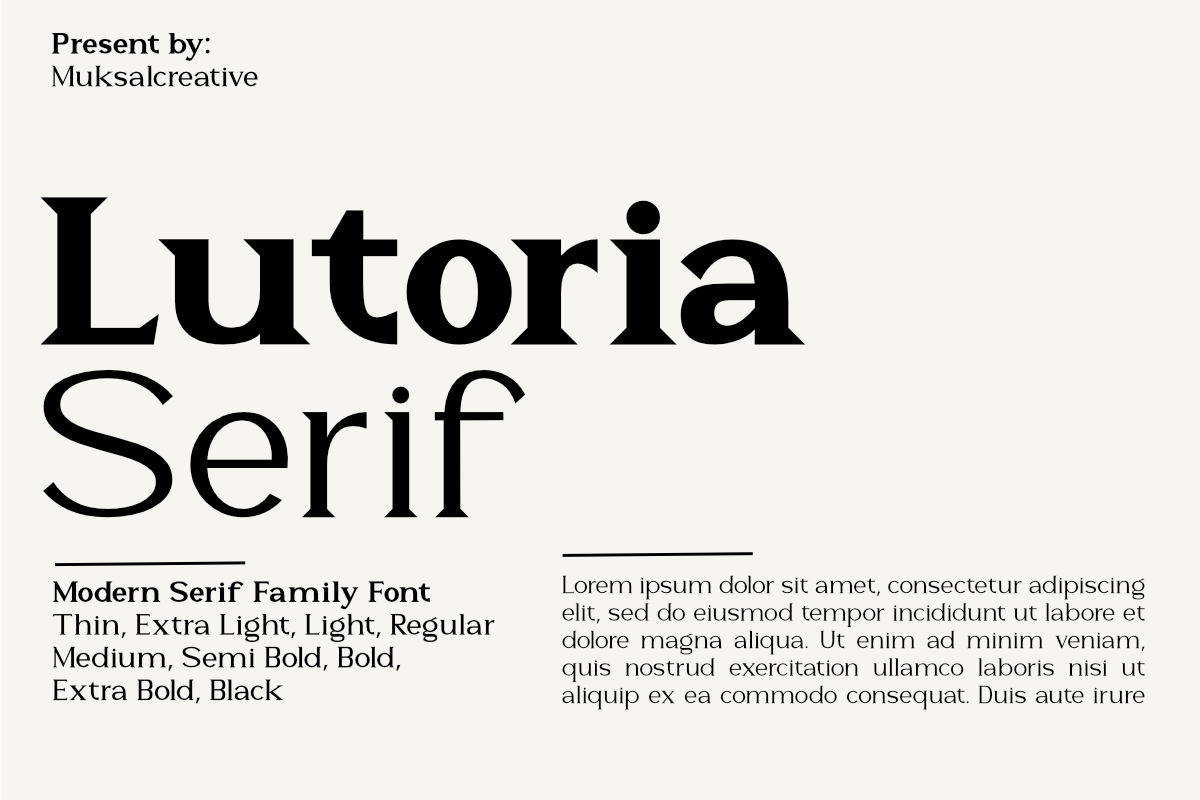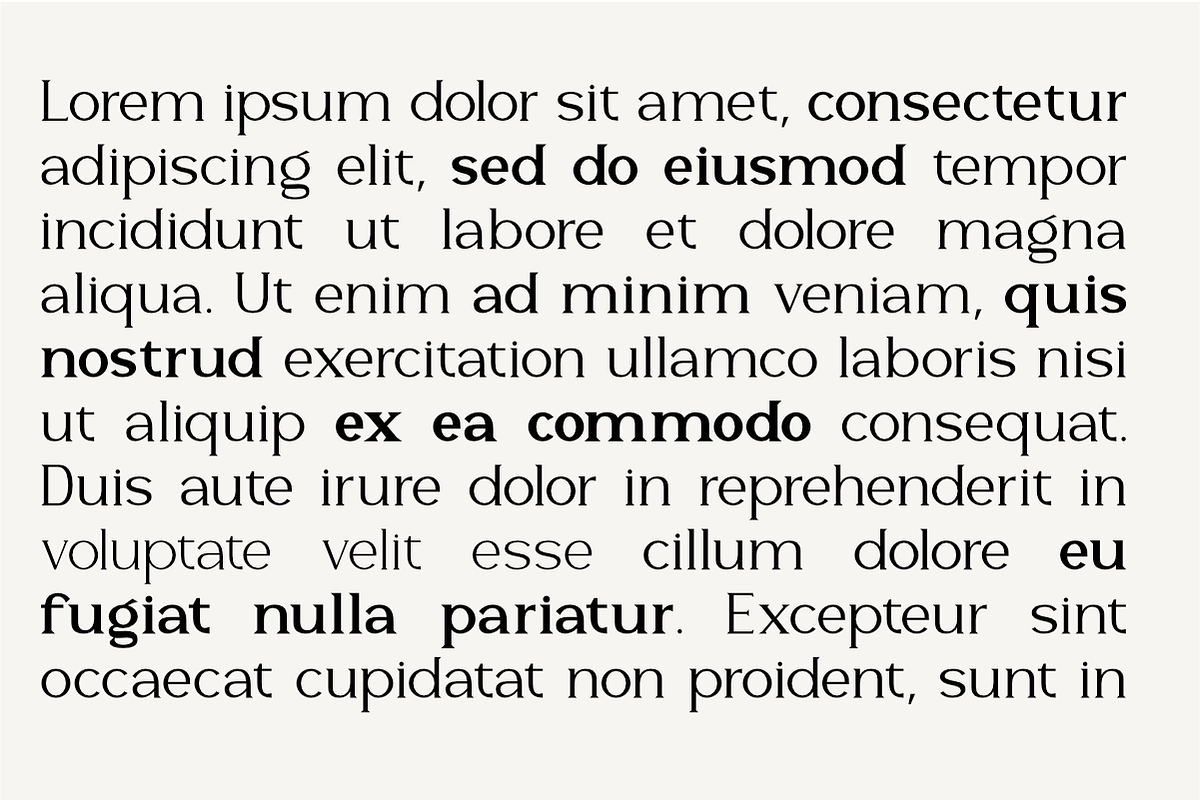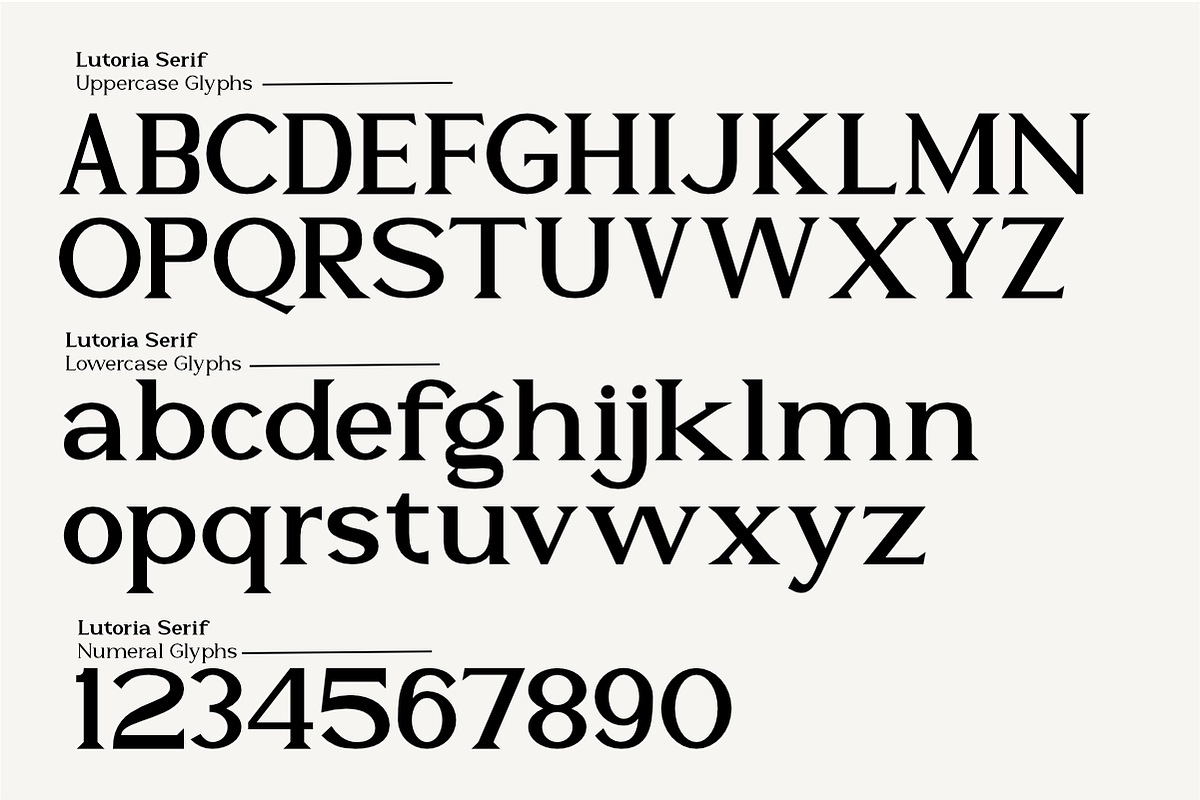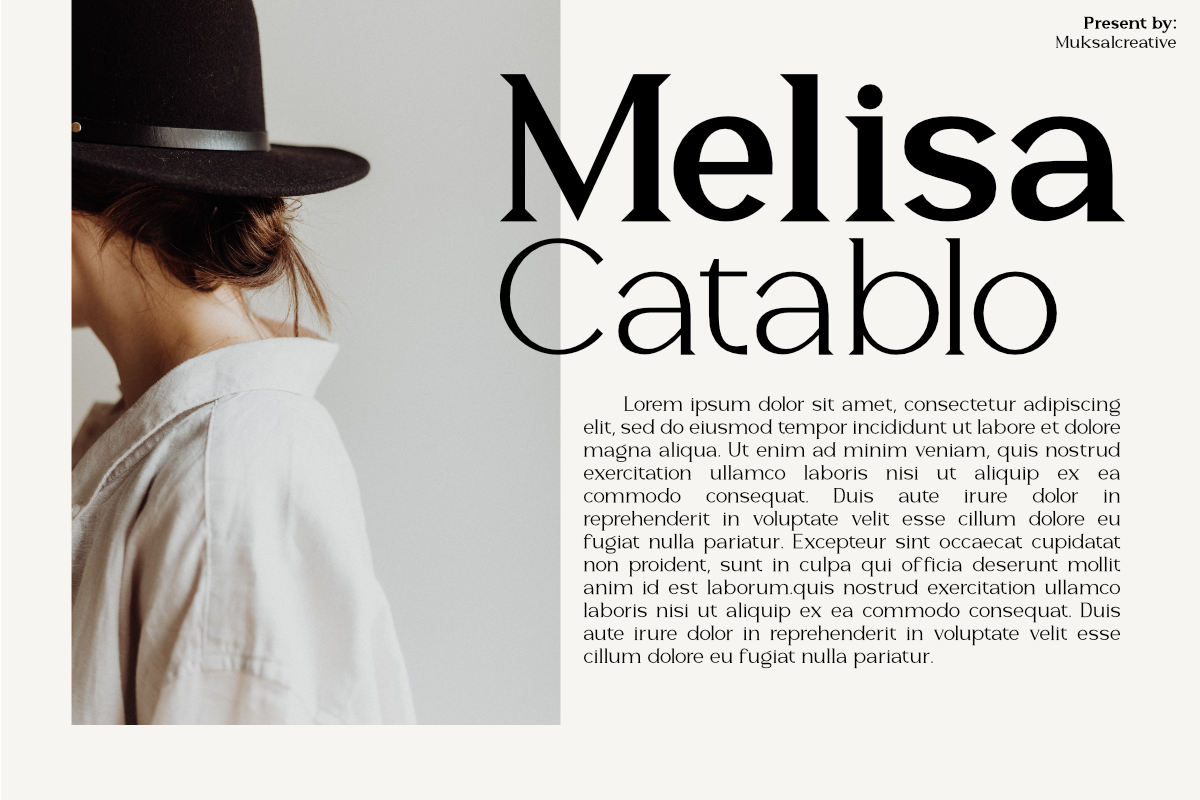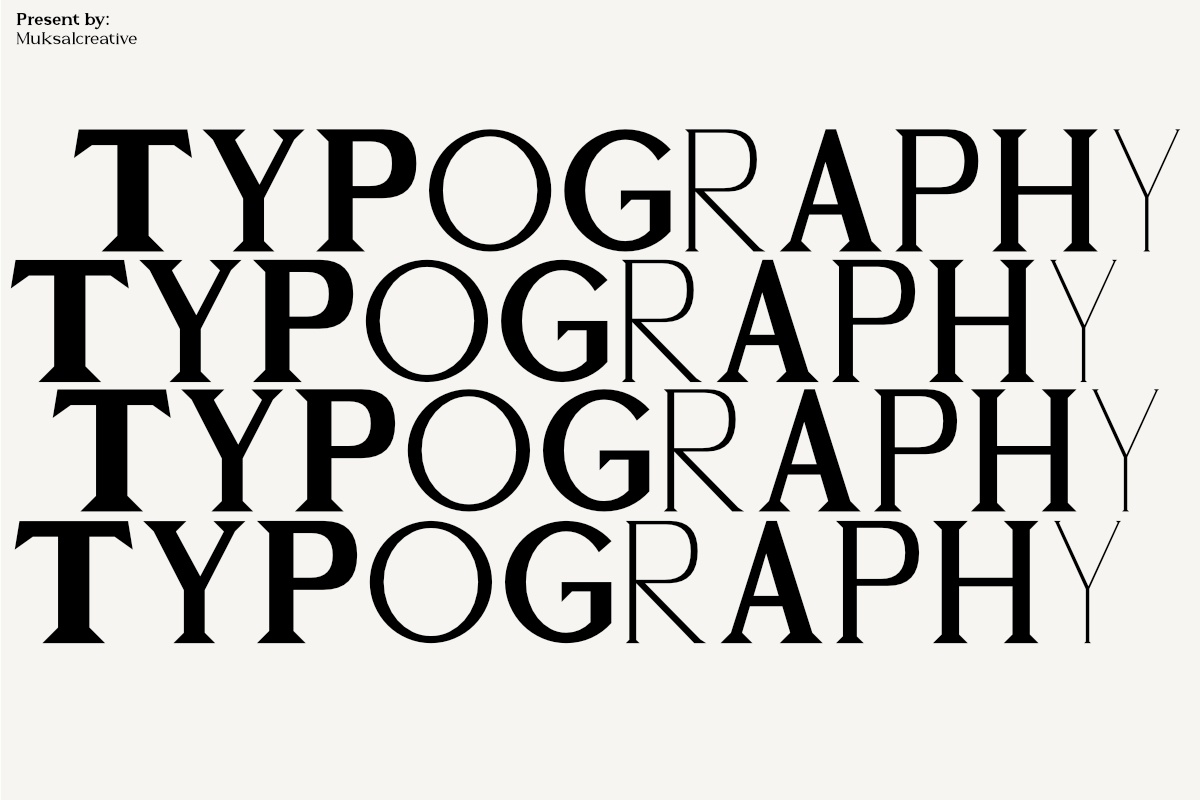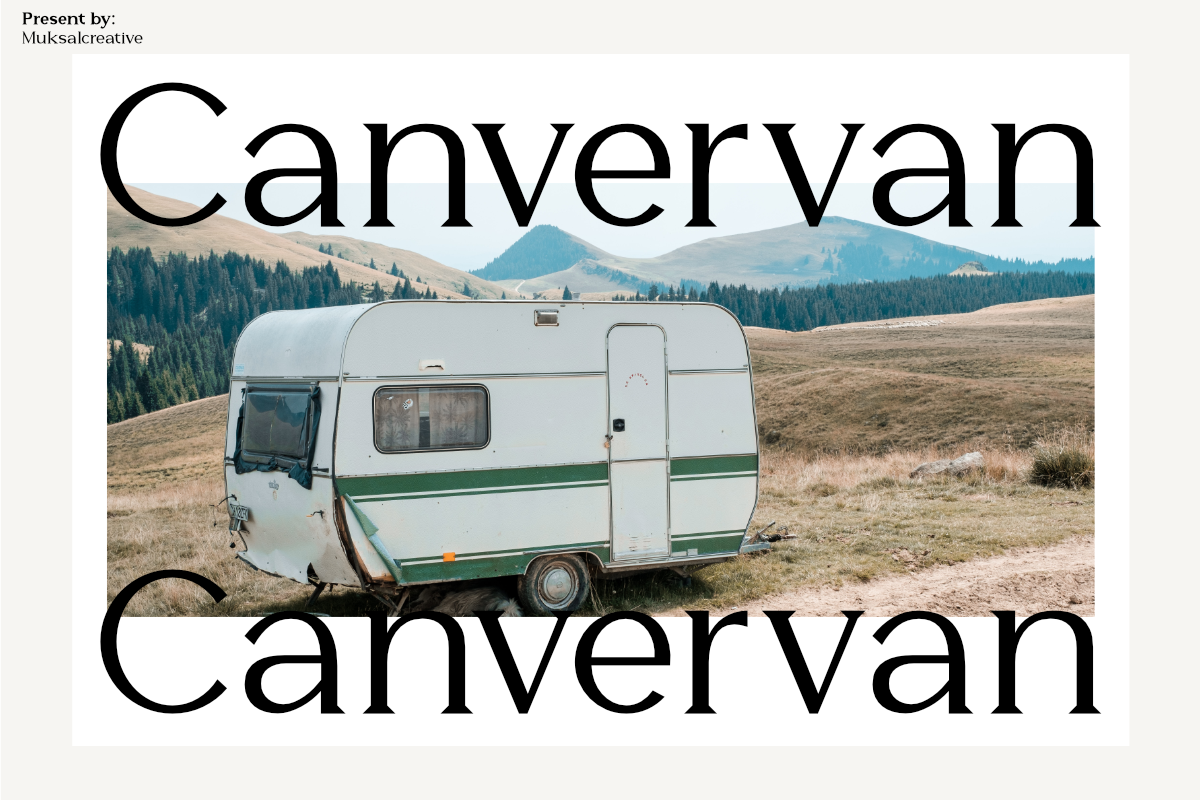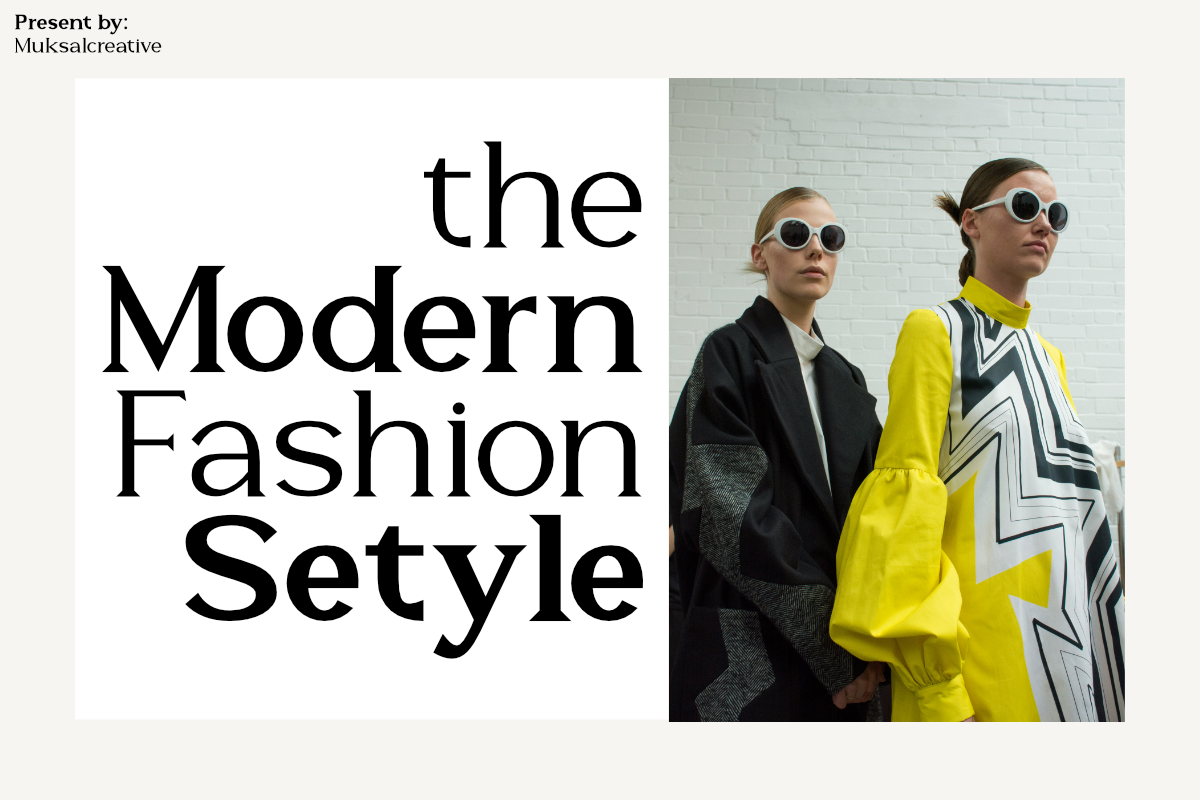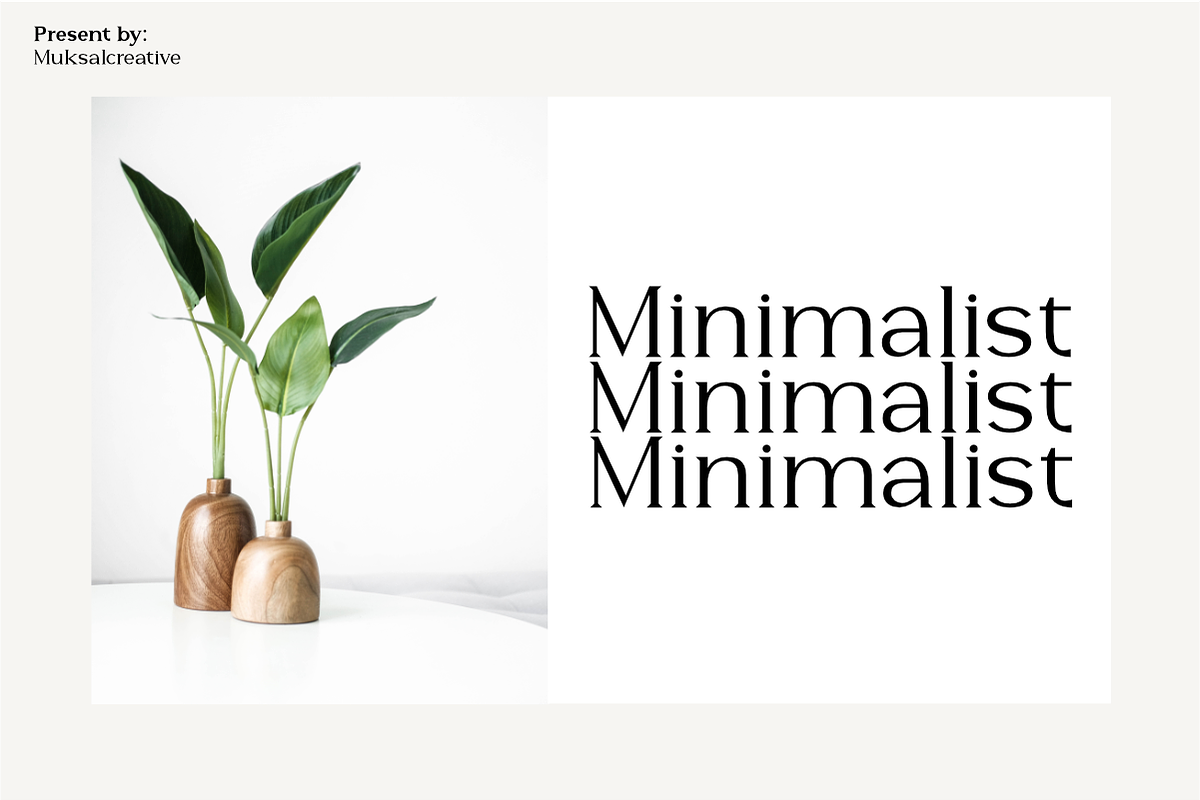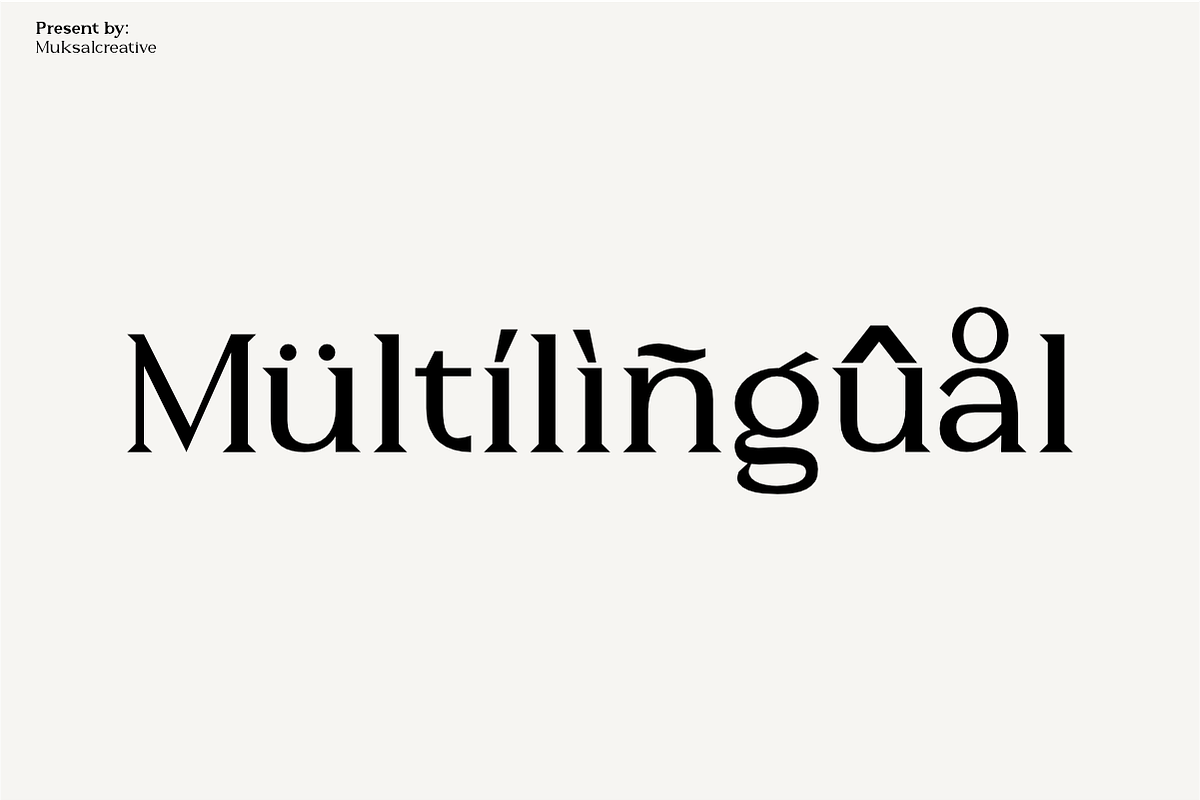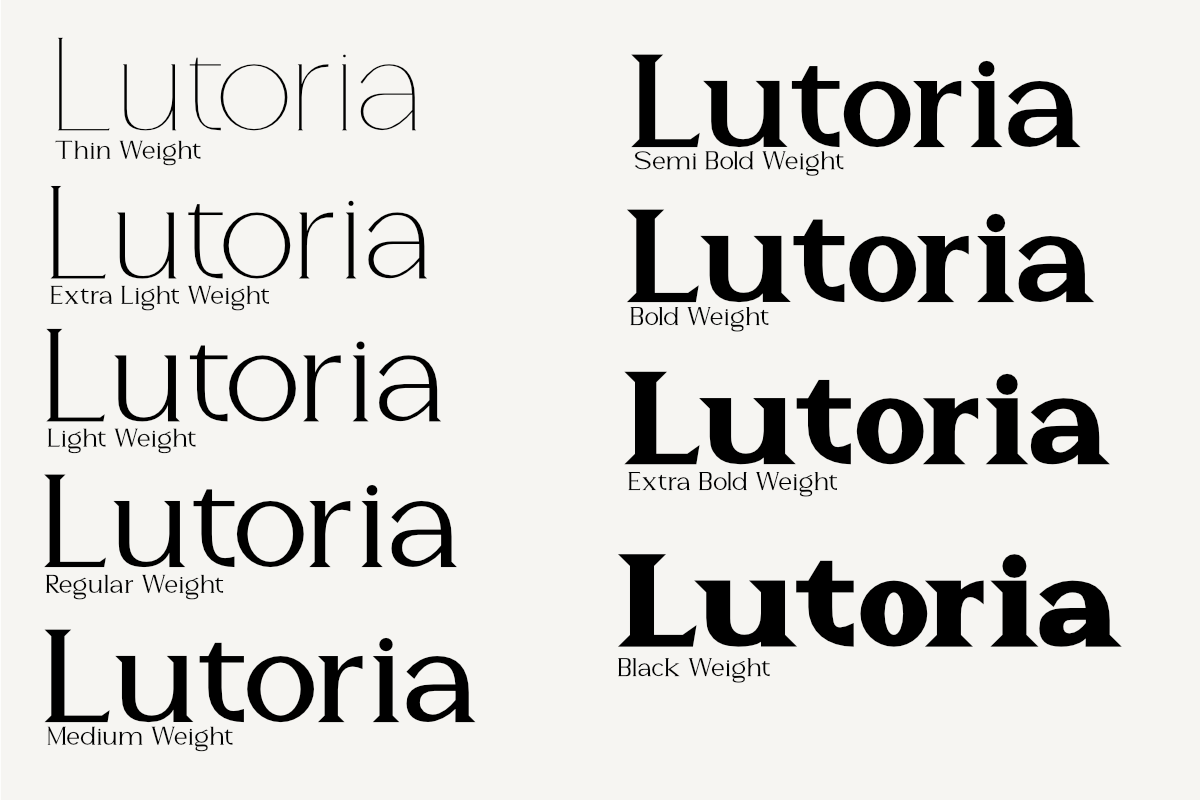
Lutoria Serif
Lutoria Serif is a modern and elegant serif font family designed with sophistication and versatility in mind. Featuring 9 styles, from the delicate Thin to the bold and striking Black, Lutoria Serif is perfect for various design needs, including editorial layouts, branding projects, and digital typography.
Its modern character brings a contemporary touch, while the serif details maintain a classic and professional feel. Each style in this family is carefully crafted to deliver clarity, balance, and visual appeal across all text sizes.